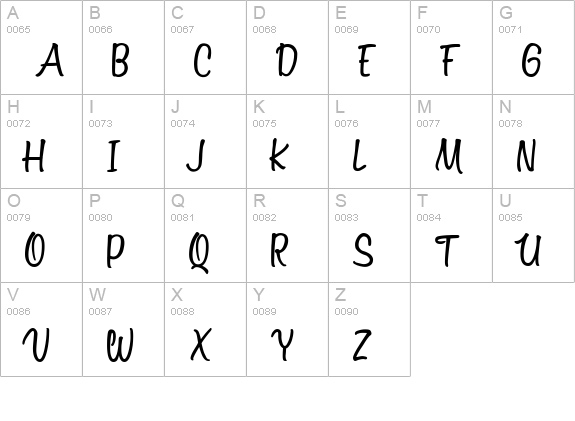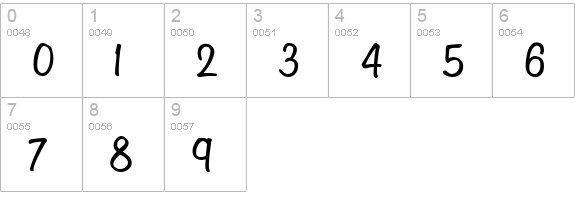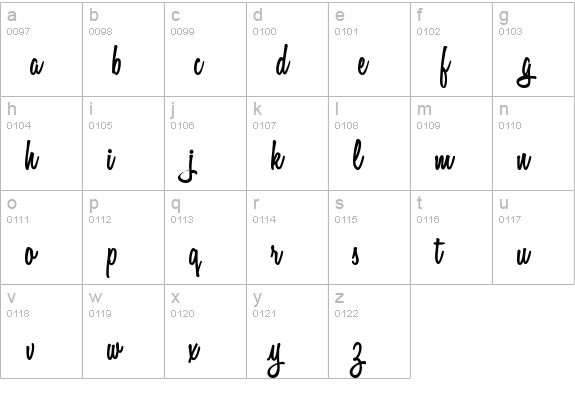
Variane Script Font Details
Variane Script font is a stunningly elegant and versatile typeface that is sure to capture your attention. Its graceful curves and delicate strokes make it the perfect choice for a wide range of design projects, from wedding invitations to branding materials. This font exudes an air of sophistication and class, while still maintaining a playful and whimsical vibe. Its flowing script style adds a touch of romance and charm to any text, making it ideal for creating eye-catching headlines or adding a personal touch to your designs. What makes Variane Script font even more appealing is that it is available for free. Yes, you read that right! This beautiful font is freely available to download at FontsMarket.com, making it accessible to designers and enthusiasts alike. Whether you're a professional graphic designer or a hobbyist looking to add a touch of elegance to your projects, Variane Script font is a must-have in your font library. Its versatility and timeless appeal make it a go-to choice for any design endeavor. So go ahead and download Variane Script font today from FontsMarket.com. Unleash your creativity and let this stunning typeface elevate your designs to new heights.